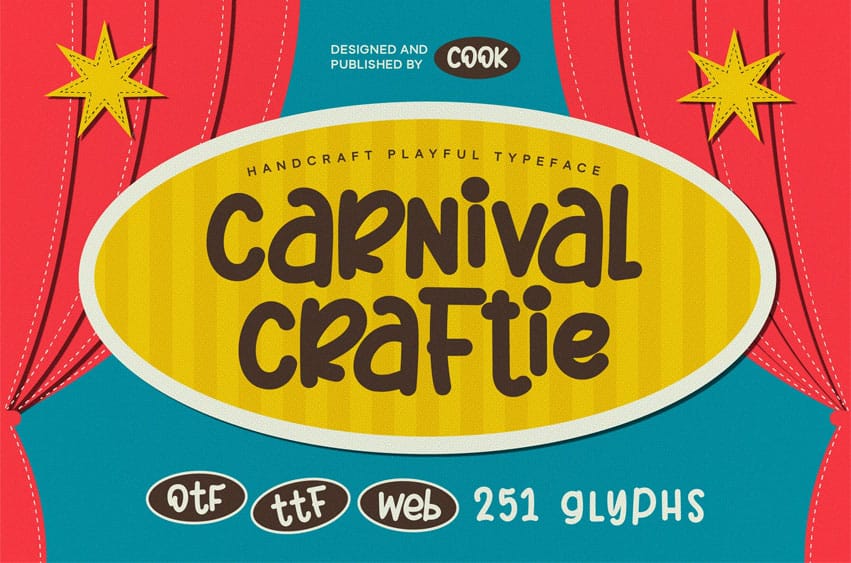
Carnival Craftie Font is a handcrafted playful typeface inspired by the vibrant atmosphere of carnavals, circus shows, and colorful craft culture. With its bold, rounded, and slightly quirky letterforms, this font brings a fun, warm, and full-of-character personality to your designs.